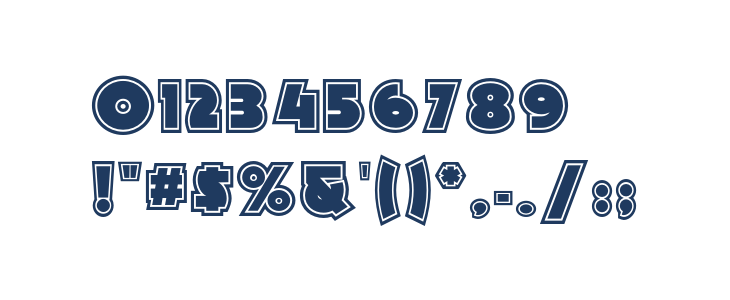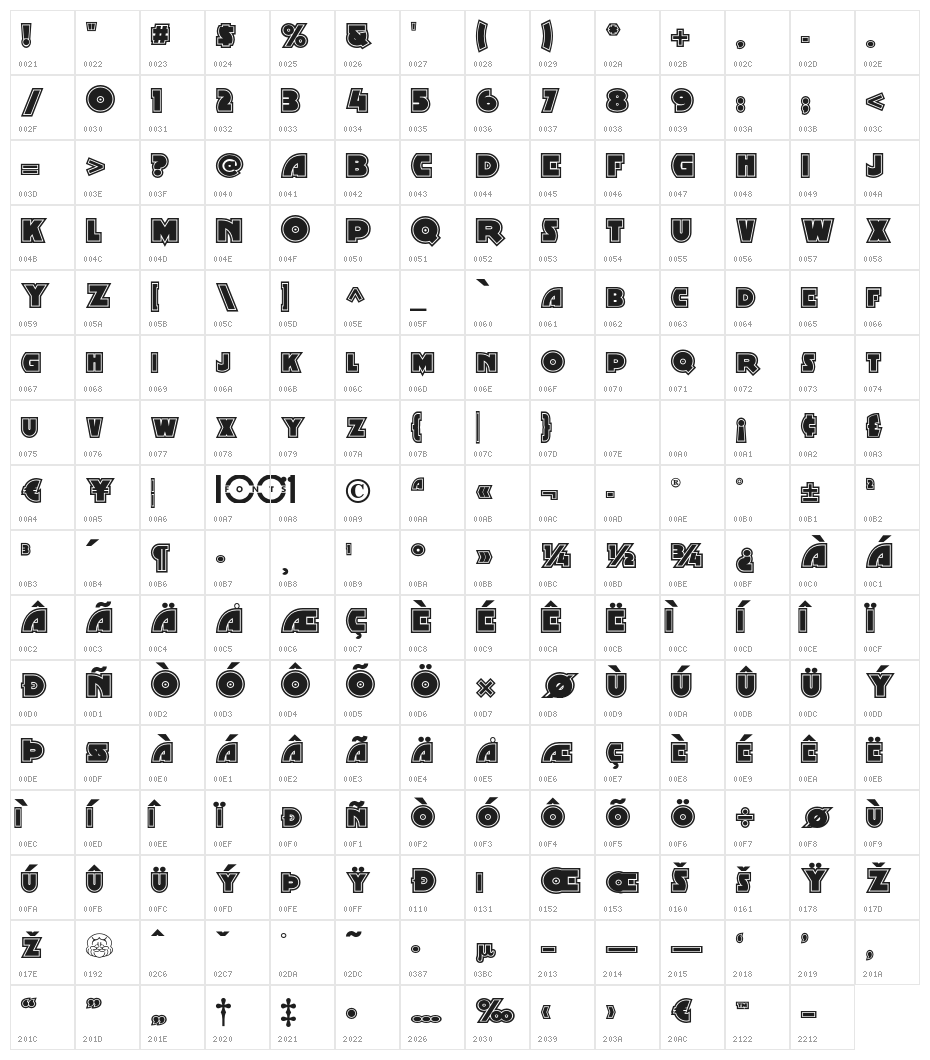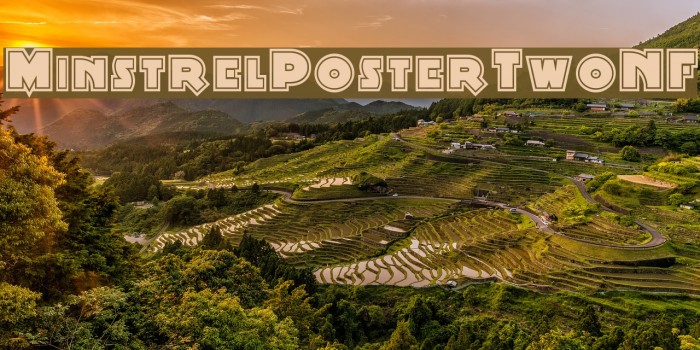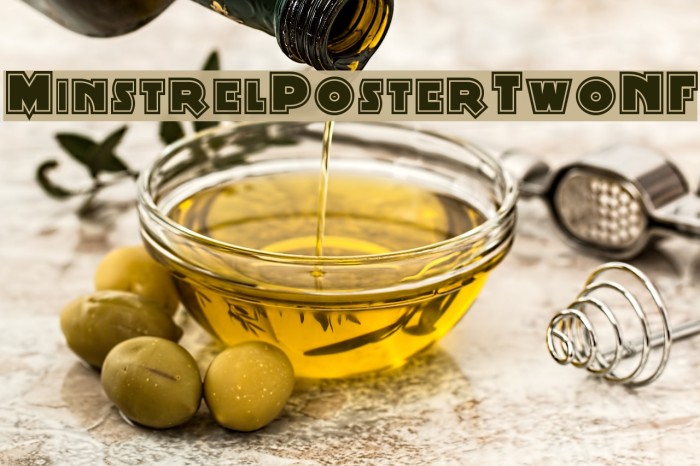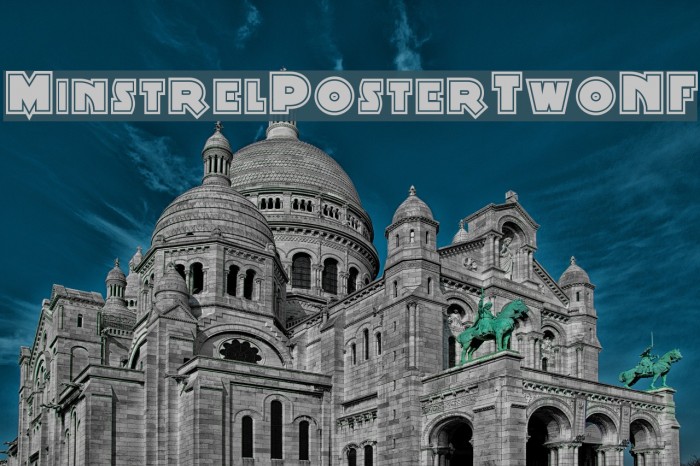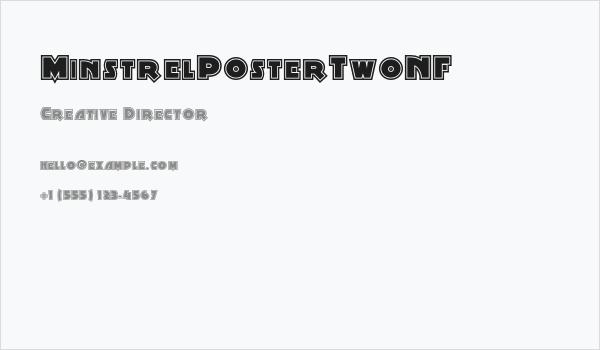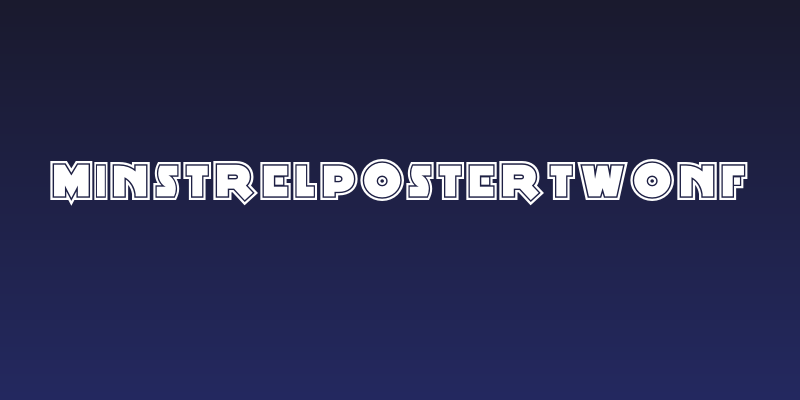
MinstrelPosterTwoNF Font
MinstrelPosterTwoNF Description
This font features a bold and striking design with a strong geometric influence. The characters are outlined with a thick border, creating a three-dimensional effect that gives a sense of depth and presence. The uppercase letters are particularly prominent, with sharp angles and clean lines that convey a sense of modernity and strength. The lowercase letters maintain the same bold style, ensuring consistency across the typeface. Numbers and special characters are equally bold, making them stand out in any design. This font is ideal for making a statement, with its eye-catching style and powerful visual impact.
| Proposed Projects | Ideal for posters, headlines, logos, and any project requiring a strong visual impact. |